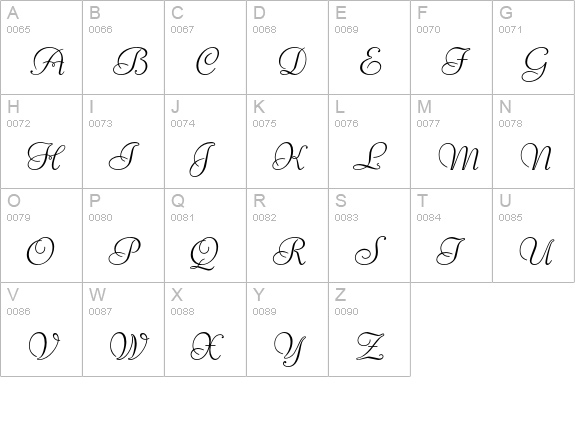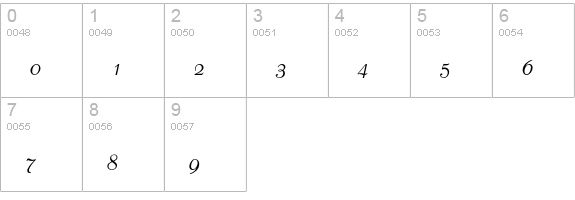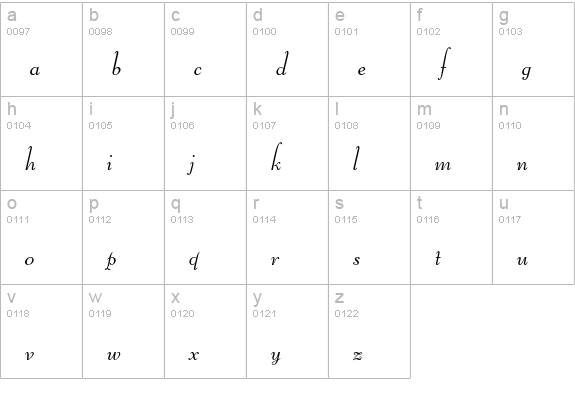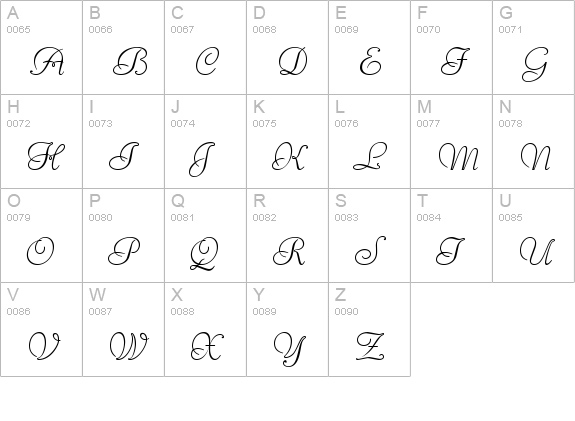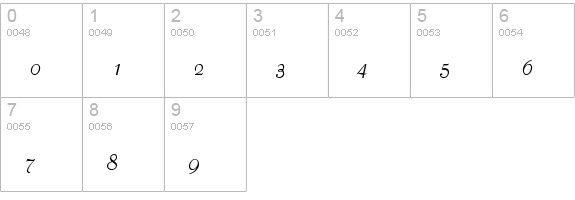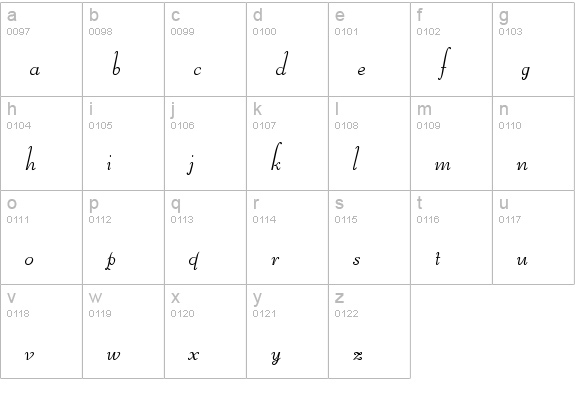
AT Liberty Std Font Details
AT Liberty Std is a versatile and elegant font that exudes a sense of freedom and creativity. With its clean lines and modern aesthetic, this typeface is perfect for a wide range of design projects, from branding to editorial design. Whether you're looking to add a touch of sophistication to your next project or simply want to convey a sense of openness and possibility, AT Liberty Std is the perfect choice. The best part? AT Liberty Std is freely available to download at FontsMarket.com, making it accessible to anyone looking to elevate their designs with this beautiful typeface. So go ahead and unleash your creativity with AT Liberty Std and see where its sense of freedom takes you.